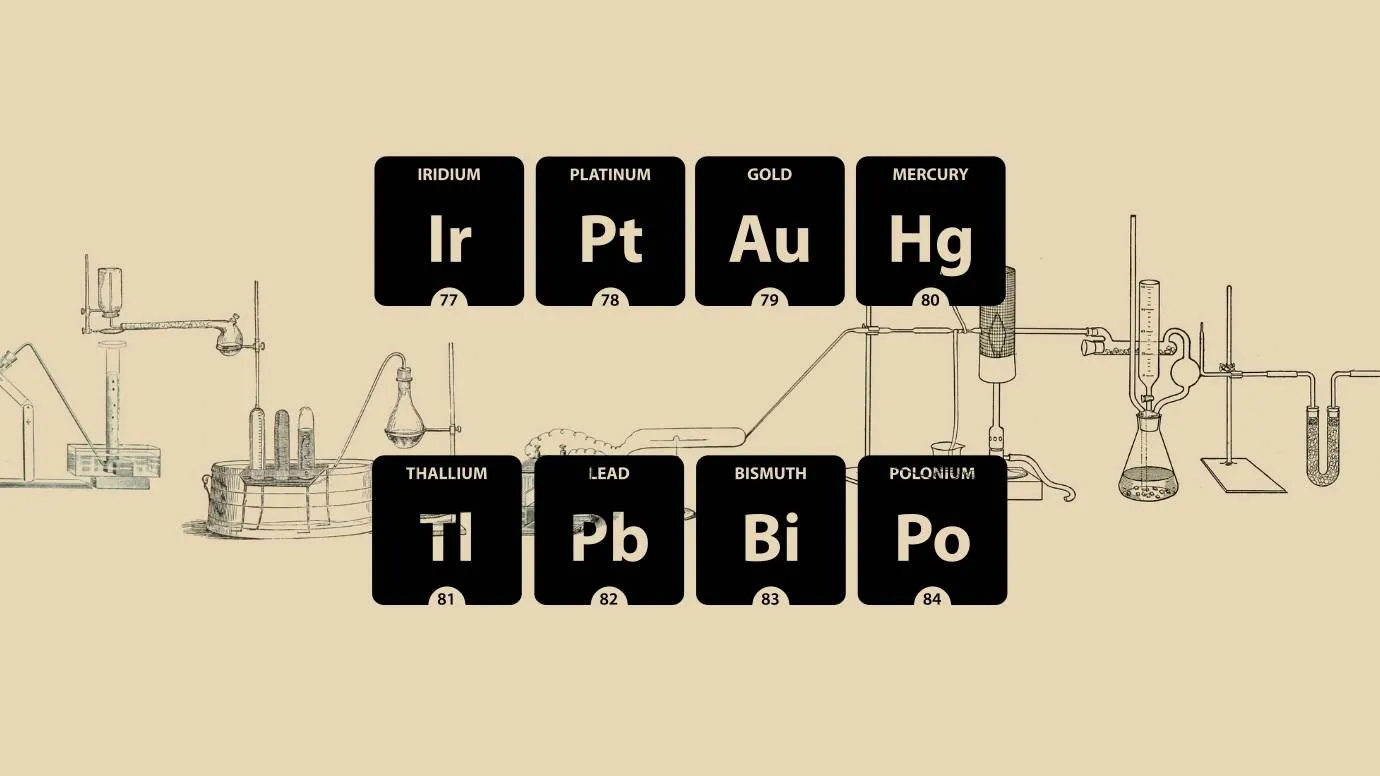
Periodic Table Font Family was designed by Mr. Manero. This stunning typeface belongs to the Sans-Serif typeface. This cute font family was designed in the base of ads of Spanish Font. This classy font comes in 6 special weights. Each of its weights contains different features.
Periodic Table Font